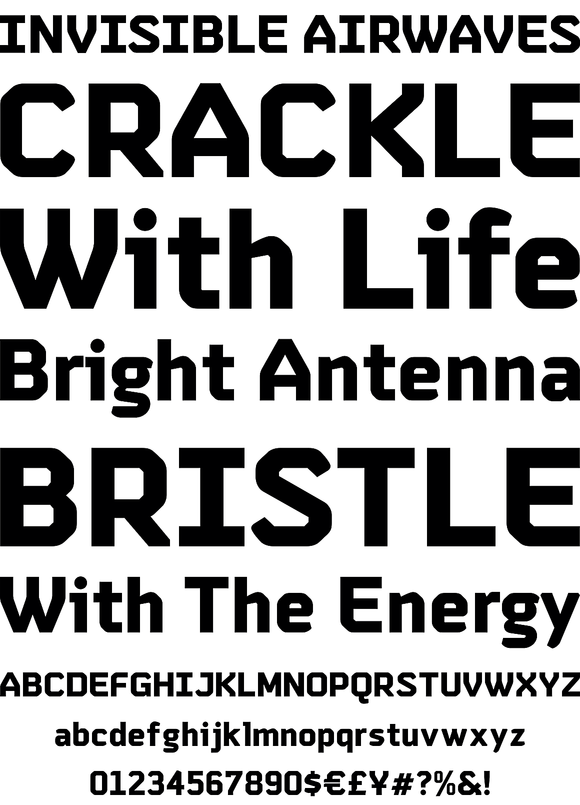
Shearman STD
Foundry: Nuno Alves / UFF Portugal
Shearman STD has a simple design, based on industrial fonts, in particular at the typewriters fonts. It's a geometric font with curves elimination, noting in particular the O and Q letters. It has smooth angles and clean forms which combine in a font with modern appearance. It include five weights with two italics and an extended European character set.